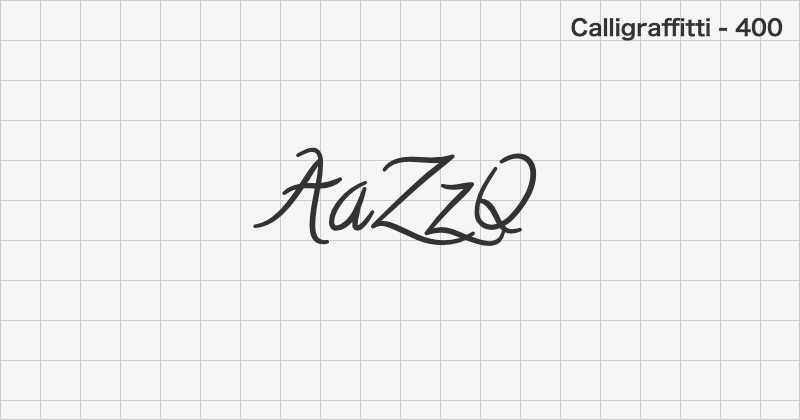
Calligraffitti features an informal and expressive calligraphic style, blending traditional calligraphy with a contemporary twist. The font captures the essence of hand-drawn letters, showcasing fluid strokes and dynamic forms that reflect a personal touch.
Calligraffitti was designed by Open Window, inspired by the calligraphic experience of the designer’s mother. The font aims to encapsulate the blend of formal practice and the vibrant influence of music, resulting in a unique visual representation.